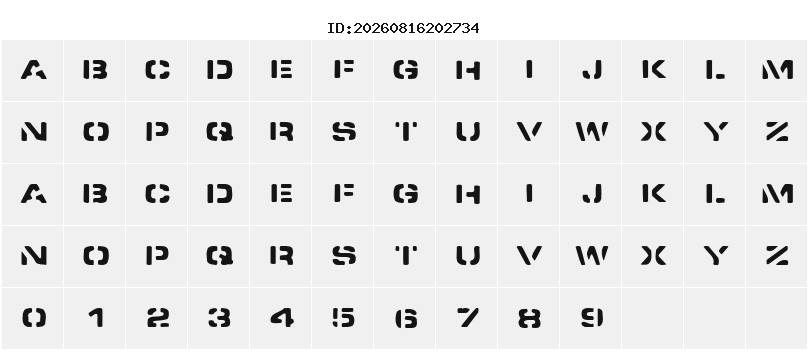
Spacedock Stencil Preview
• Font Name: Spacedock Stencil
• Full Font Name: Spacedock Stencil
• Designer: S. John Ross
• Description: A stressed stencil font inspired by Eurostile Extended Bold
About Spacedock Stencil.ttf
Spacedock Stencil.ttf is a modern, elegant sans-serif font designed for ultimate readability and visual harmony. Perfect for branding, headlines, web design, and print materials.